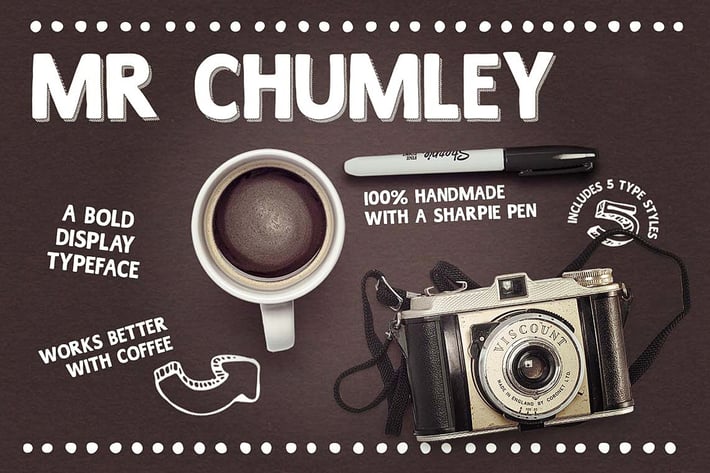
Mr Chumley font
Mr Chumly my new handmade display typeface. Mr Chumley has a bold fresh personality. It will bring a touch of fun to your work. It's casual hand-lettered style has that quirky handmade feel.
The main regular font was 100% handmade using a sharpie pen on paper.
Display typeface
Ideal for headlines at 16 points or higher. Mr Chumley would look great on Posters, Book jacket designs, Packaging, Billboards and anything where you want that bold look.
Layered font
Mr Chumley is my first layered font. It comes with two font layers to add shadow and hatches.
Meaning you can create your own combinations from the other 4 main font styles. The font has 6 flavours including:
Regular
Rough
Grunge
Halftone
Shadow
Hatches
It includes around 229 glyphs including:
Uppercase letters only
Punctuation & Symbols
Western European characters
Central European characters
South Eastern European characters